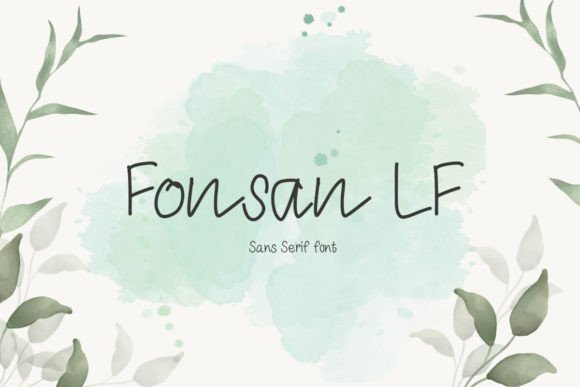
Introducing Fonsan LF, the captivating handwritten font that ignites the flame of love and creativity. Its playful and fun nature dances across each letter, evoking a sense of joy and lightheartedness.
With Fonsan LF, your creations will burst with personality. Its informal style and casual vibe make it the perfect companion for fun projects, diary planners, and heartfelt messages. Imagine the delight of your loved ones as they receive wedding invitations or thank-you cards adorned with Fonsan LF's charming strokes. Each word will carry a touch of warmth and genuine affection.
Fonsan LF's versatility goes beyond personal projects. It seamlessly blends into the world of logos, posters, and blogs, adding a touch of whimsy and charm. Its presence on T-shirts, clothing, and bags will spread happiness wherever it goes.
Let Fonsan LF be your artistic muse, inspiring you to create designs that resonate with your audience. Its relaxed touch and enchanting aura will make your creations truly unforgettable. Embrace the magic of Fonsan LF and let your imagination soar.